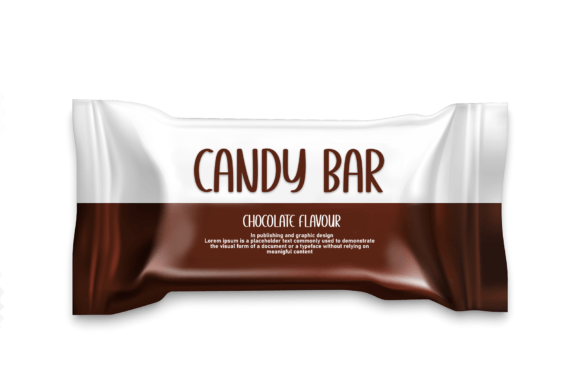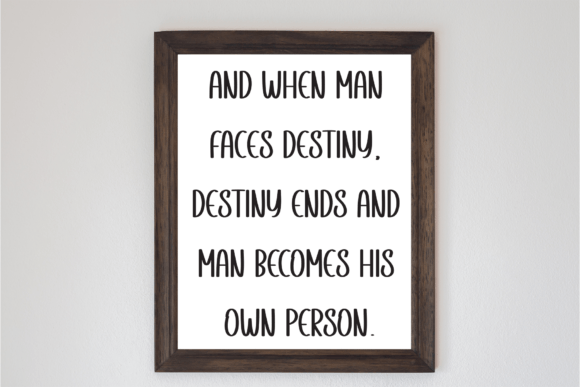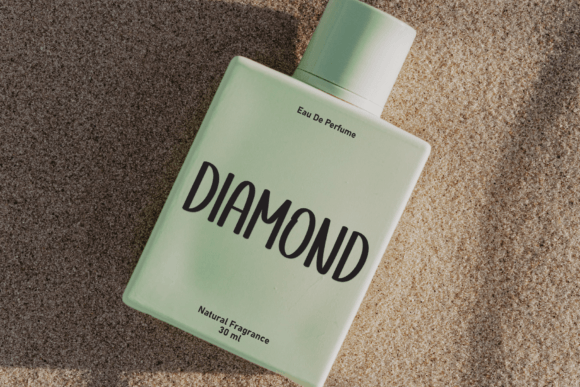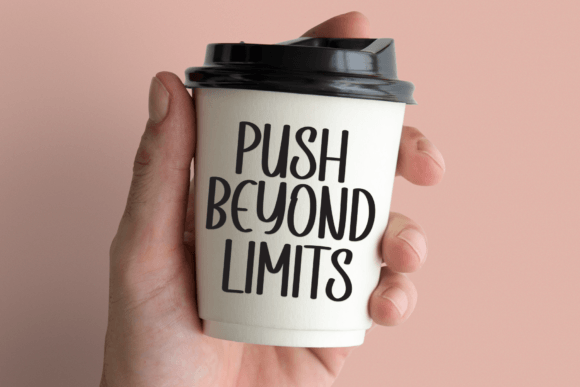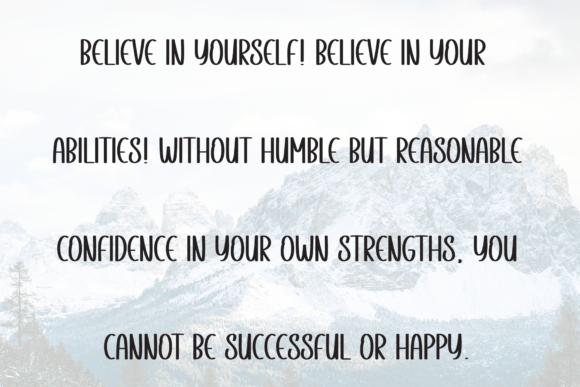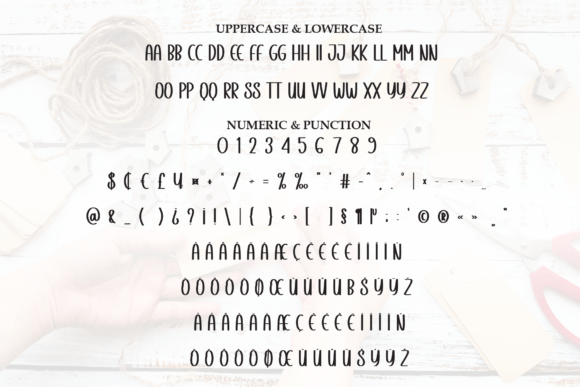
Introducing Handmade Font: The Adorable Handwritten Font to Elevate Your Creations
Are you a designer, crafter, or DIY enthusiast looking for a font that can add a personal touch to your projects? Look no further than Handmade Font, an adorable handwritten font that can elevate any creation. In this article, we’ll explore the features and benefits of Handmade Font, and why it’s a must-have for your font library.
The Charm of Handmade Font
Handmade Font is a beautifully crafted handwritten font that exudes warmth and personality. Its unique, hand-written style gives it a charming and approachable feel, making it perfect for a wide range of projects, from invitations and greeting cards to branding and packaging.
No matter the topic, Handmade Font is an incredible asset to your font library. Its versatility and flexibility make it suitable for various design applications, including:
• Greeting cards and gift tags
• Branding and packaging design
• Blog and website design
Key Features of Handmade Font
So, what makes Handmade Font so special? Here are some of its key features:
• Unique and Handwritten Style: Handmade Font boasts a distinctive, hand-written style that’s both elegant and playful.
• Highly Legible: Despite its handwritten nature, Handmade Font is highly legible, making it perfect for body text and captions.
• Extensive Character Set: Handmade Font includes an extensive character set, covering uppercase and lowercase letters, numbers, punctuation, and special characters.
Benefits of Using Handmade Font
So, why should you choose Handmade Font for your projects? Here are some benefits of using this beautiful font:
• Adds a Personal Touch: Handmade Font adds a personal touch to your designs, making them more relatable and engaging.
• Creates Emotional Connection: The handmade feel of this font creates an emotional connection with your audience, making them more likely to respond positively to your message.
• Versatile and Flexible: Handmade Font is highly versatile and flexible, making it suitable for a wide range of design applications.
Tips for Using Handmade Font Effectively
To get the most out of Handmade Font, here are some tips for using it effectively:
• Pair with Other Fonts: Pair Handmade Font with other fonts to create visual interest and hierarchy in your designs.
• Experiment with Colors and Textures: Experiment with different colors and textures to add depth and personality to your designs.
• Use for Headings and Titles: Use Handmade Font for headings and titles to add a touch of elegance and sophistication.
• Keep it Simple: Keep your designs simple and uncluttered to let Handmade Font shine.
In conclusion, Handmade Font is a beautiful and versatile handwritten font that’s perfect for designers, crafters, and DIY enthusiasts. Its unique style, high legibility, and extensive character set make it an incredible asset to your font library. With its ability to add a personal touch, create emotional connections, and work well with various design software, Handmade Font is a must-have for any creative project. So why wait? Get your hands on Handmade Font today and elevate your creations to the next level!